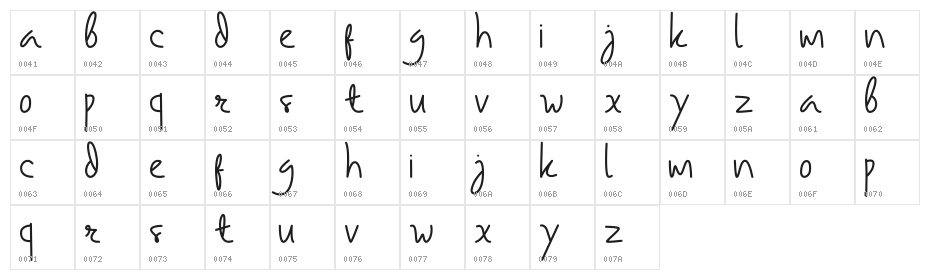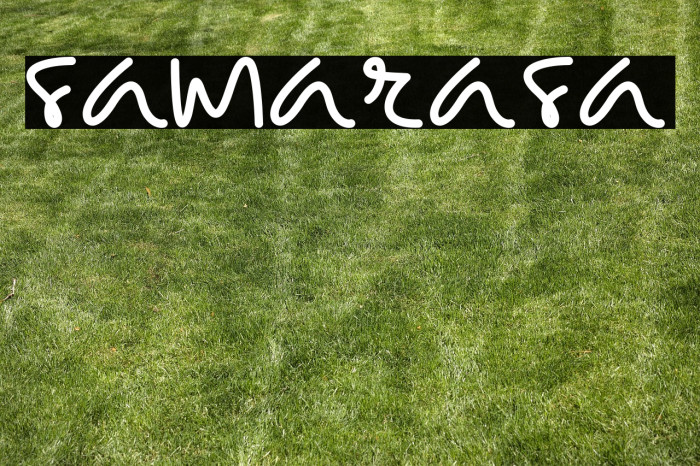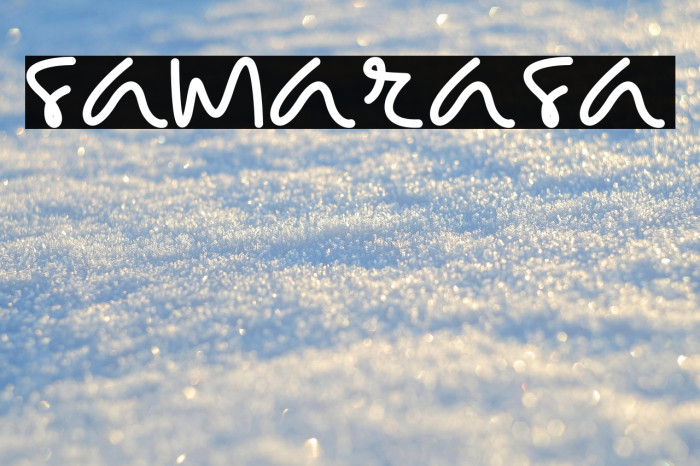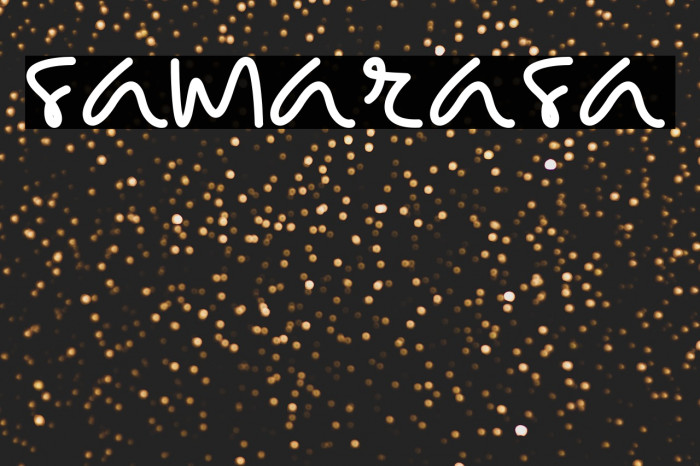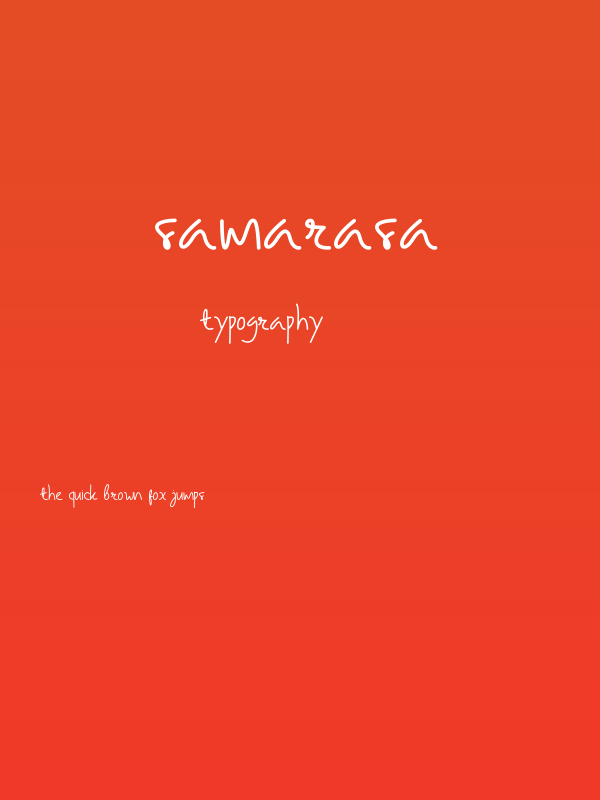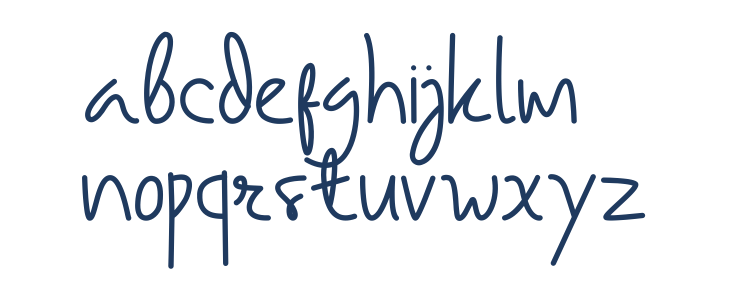
samarasa Font
| Stile generale | Playful, Whimsical |
| Caso d'uso | Headlines, Invitations, Personal Branding |
| Progetti proposti | Ideal for greeting cards, invitations, personal branding, and creative projects that benefit from a personal touch. |